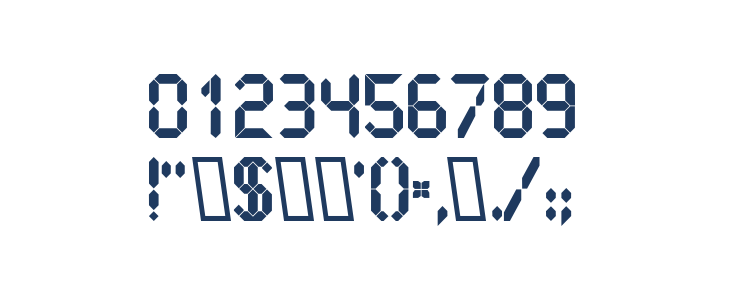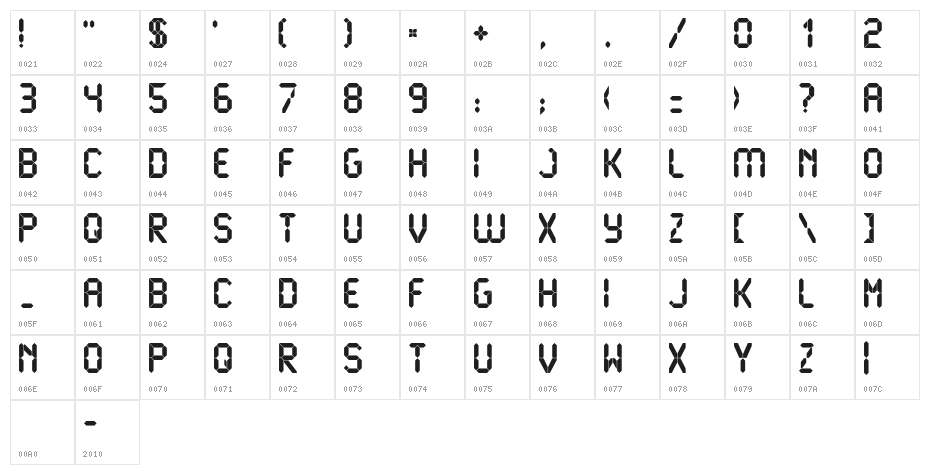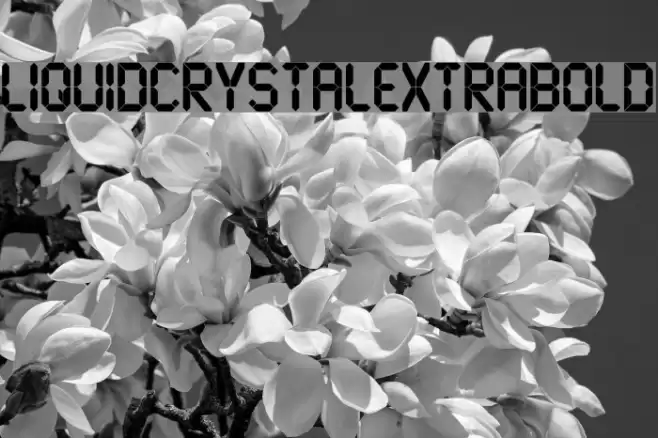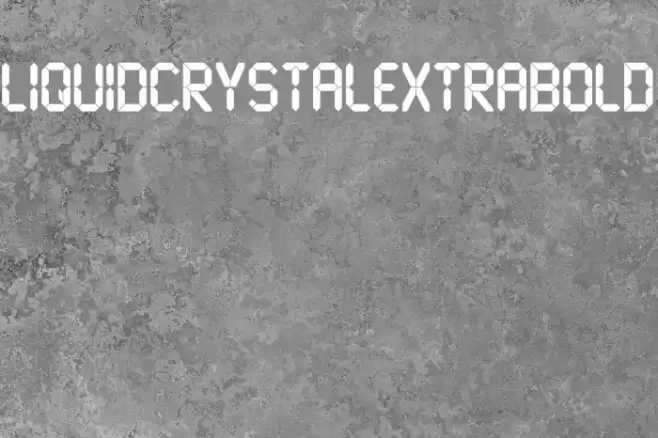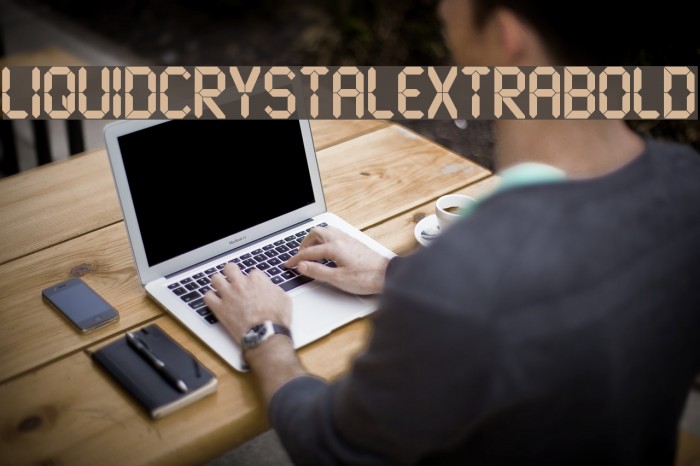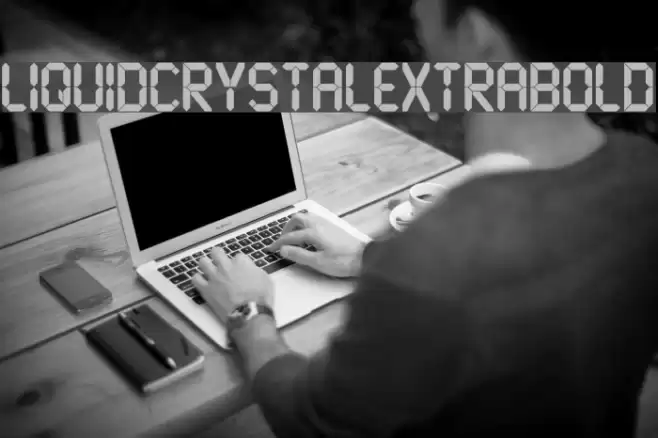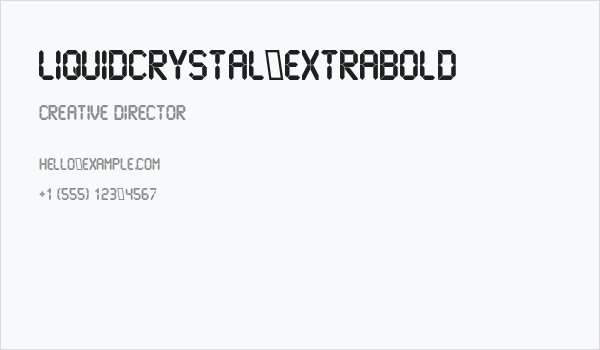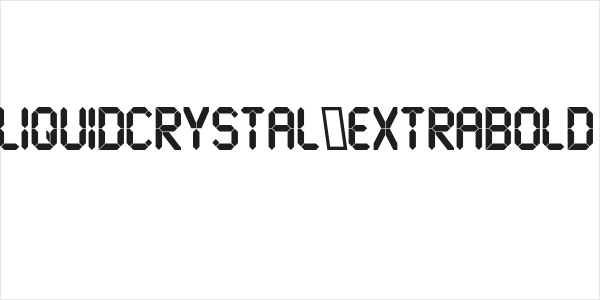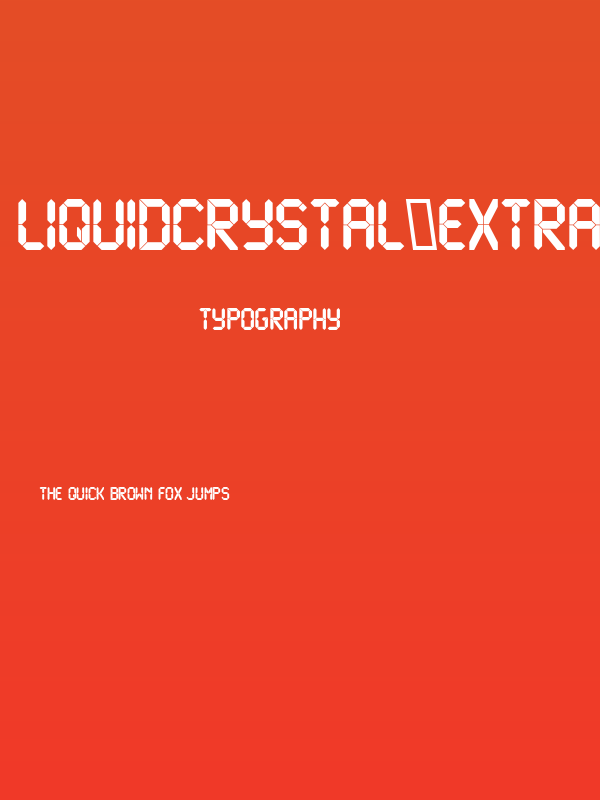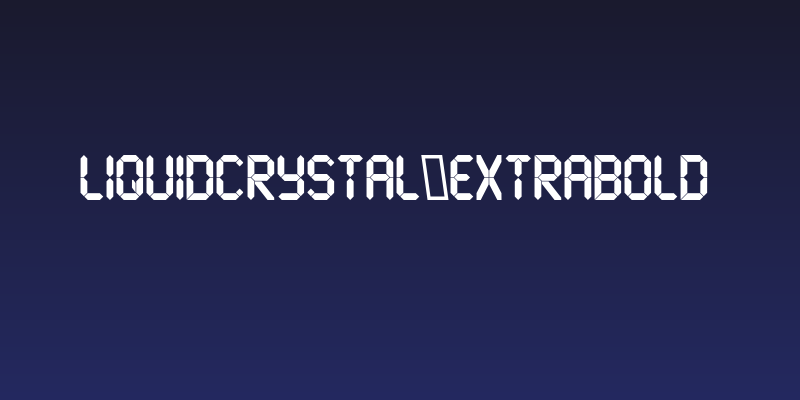
LiquidCrystal-ExtraBold Font
LiquidCrystal-ExtraBold Description
This font features a bold, geometric design reminiscent of digital displays and retro technology. Each character is constructed from a series of angular, block-like segments, creating a futuristic and mechanical appearance. The uppercase and lowercase letters maintain a consistent style, with sharp edges and uniform line thickness. Numbers and special characters follow the same design principles, ensuring a cohesive look across all glyphs. The font's distinct style makes it ideal for projects that require a modern, tech-inspired aesthetic.
| Use Case | Logos, Headlines, Digital displays |
| Proposed Projects | Ideal for digital displays, tech-themed branding, video game interfaces, and futuristic posters. |